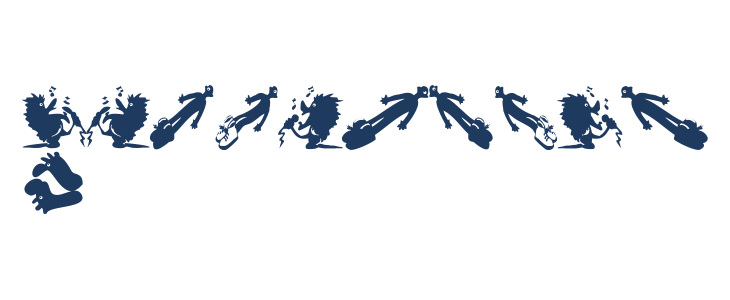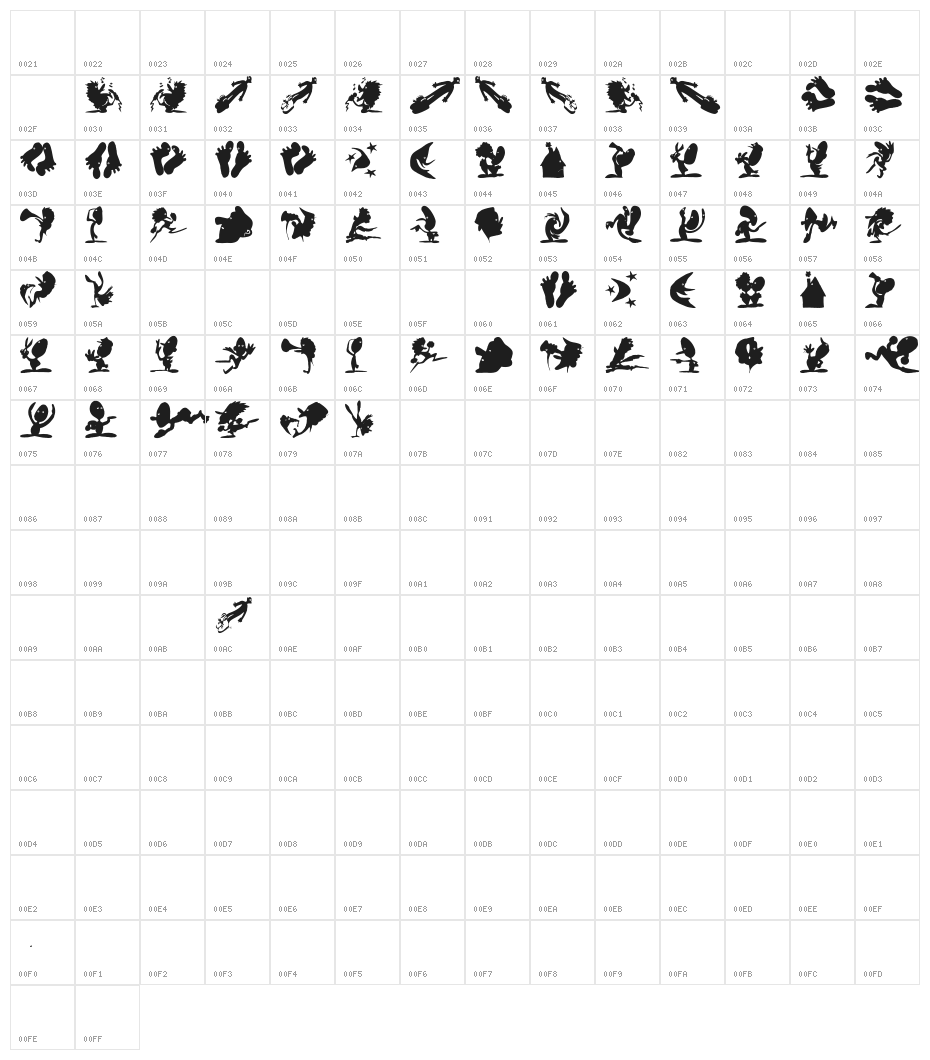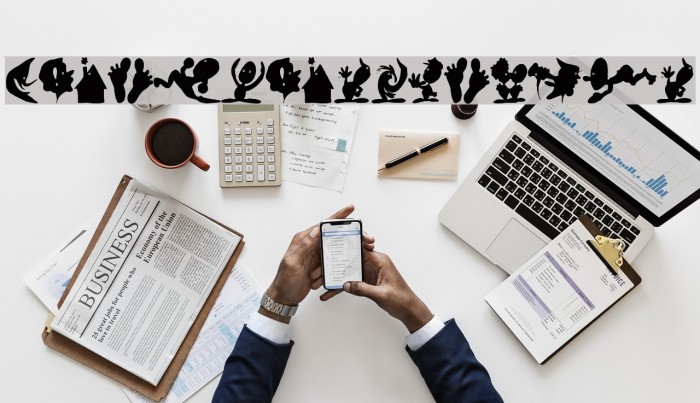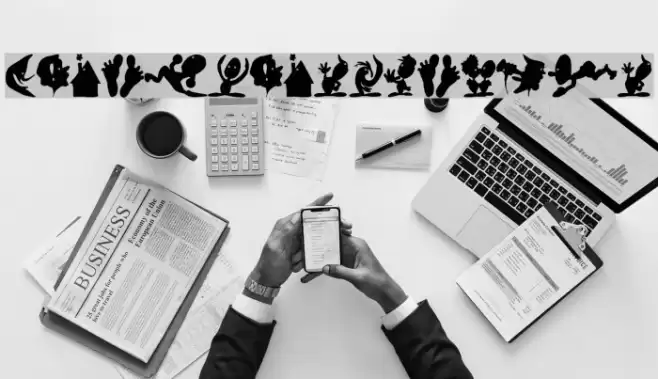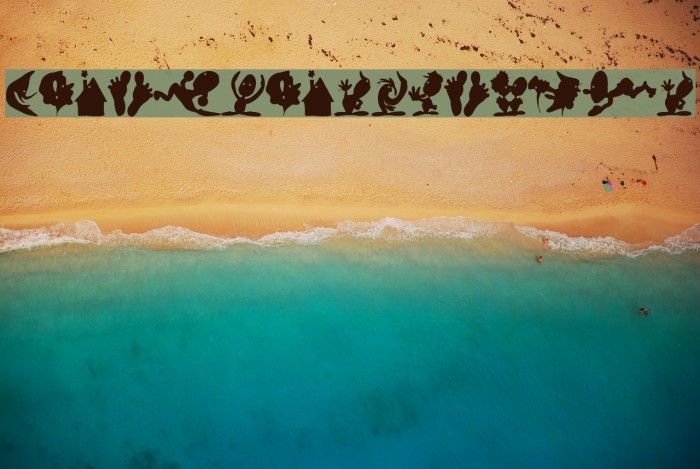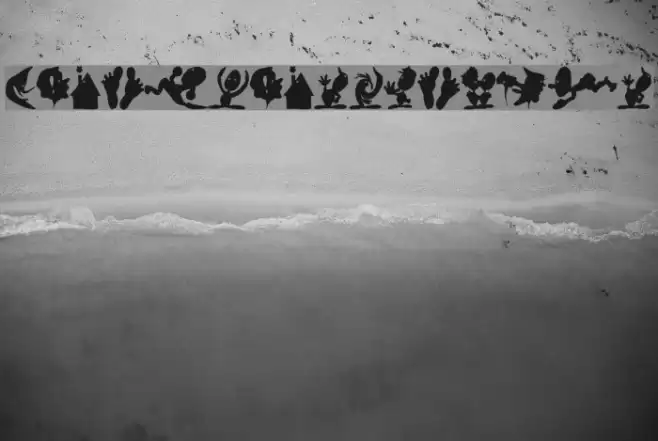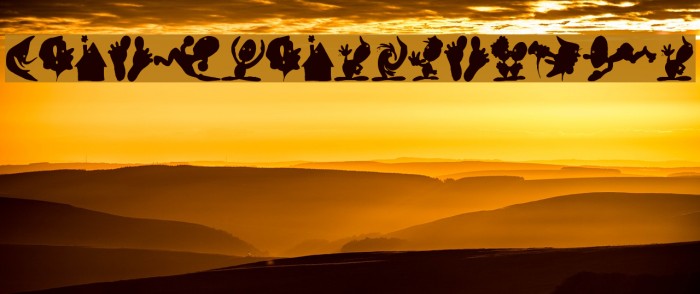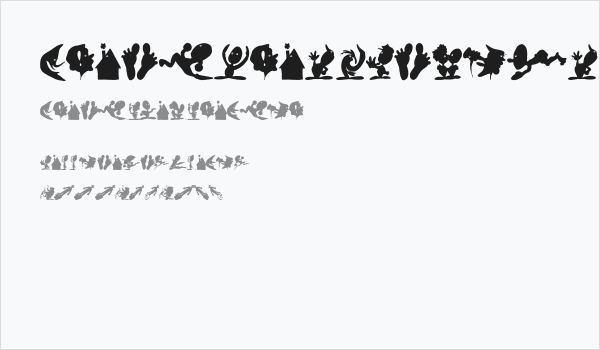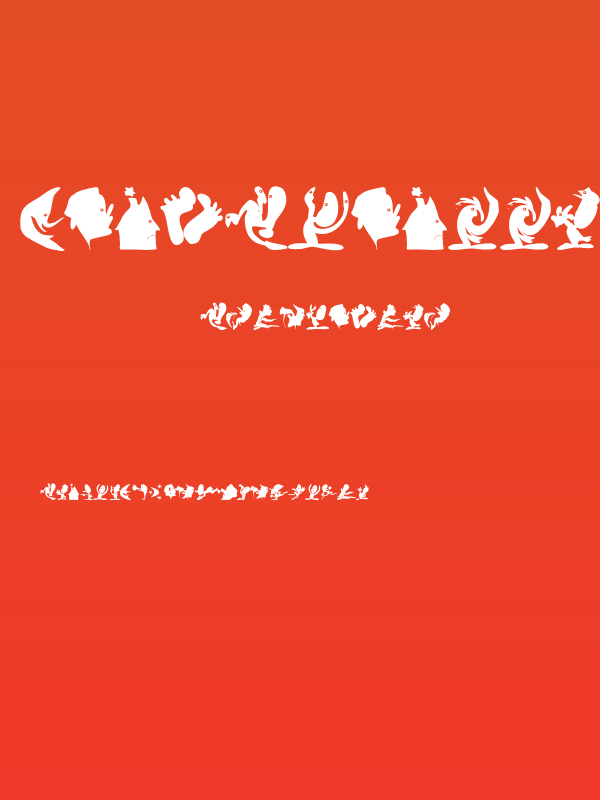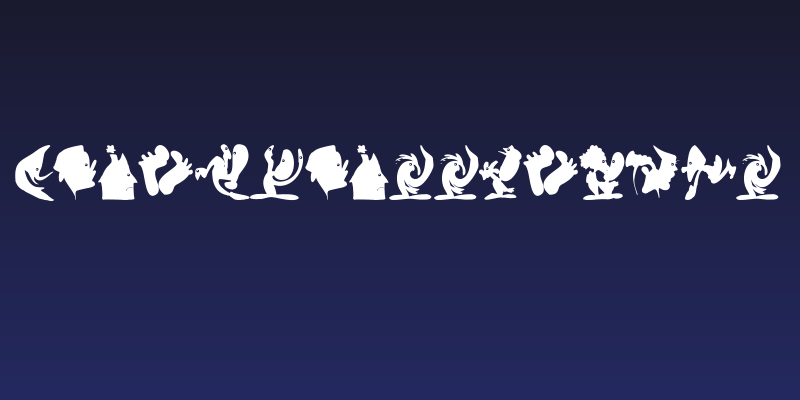
CreaturesShadows Font
CreaturesShadows Description
A playful and whimsical decorative font featuring silhouette-style characters and creatures, each letter and symbol represented by a unique shadowy figure or scene. The glyphs are highly illustrative, with exaggerated, cartoon-like forms and dynamic poses, creating a lively and imaginative appearance.
| Overall Style | Whimsical, Playful, Decorative |
| Use Case | Logos, Headlines, Posters, Themed Graphics |
| Proposed Projects | Children's books, fantasy posters, party invitations, Halloween materials, creative branding, themed event signage. |